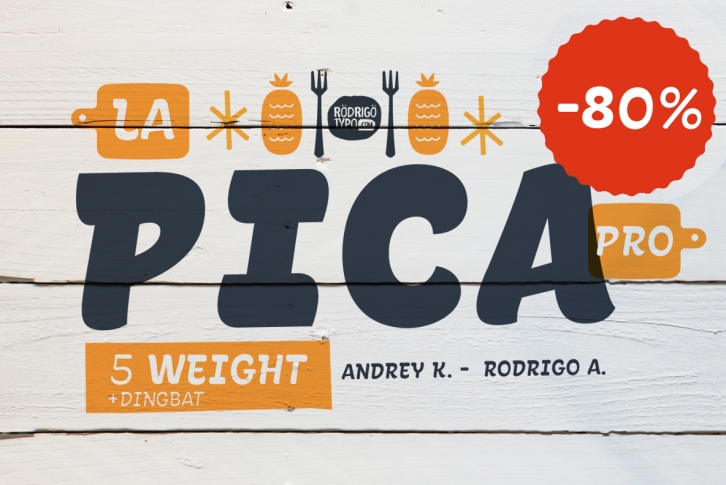
La Picu00e1 Pro is a trendy and unique font with an authentic style. It was designed by RoTypo and it's a great choice for creative people who need such a font. It was released on September 5, 2018 and the file size is 18.78 MB. La Picu00e1 Pro will add an organic vibe to any design idea!